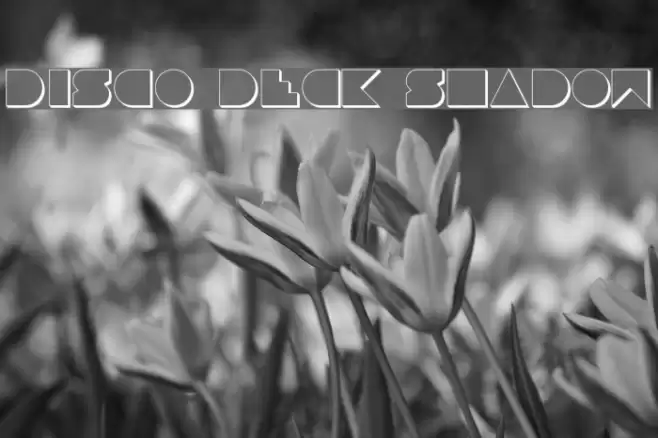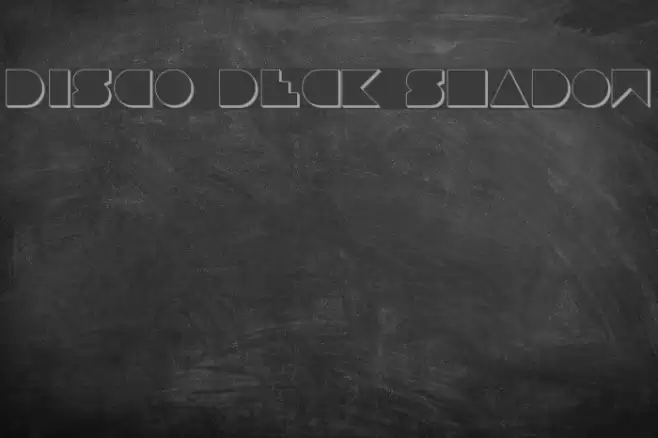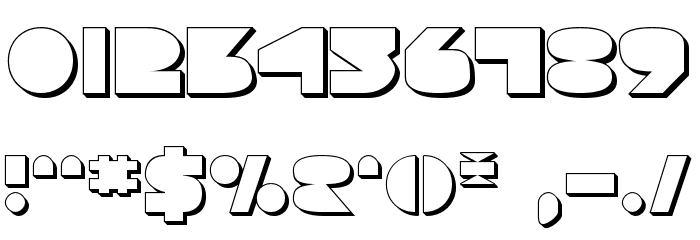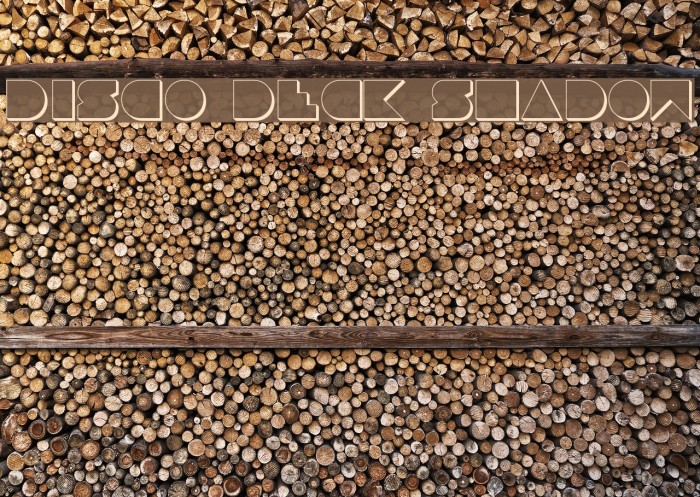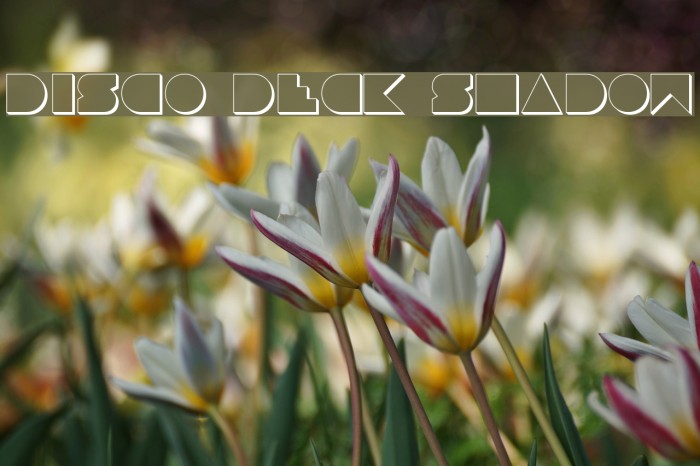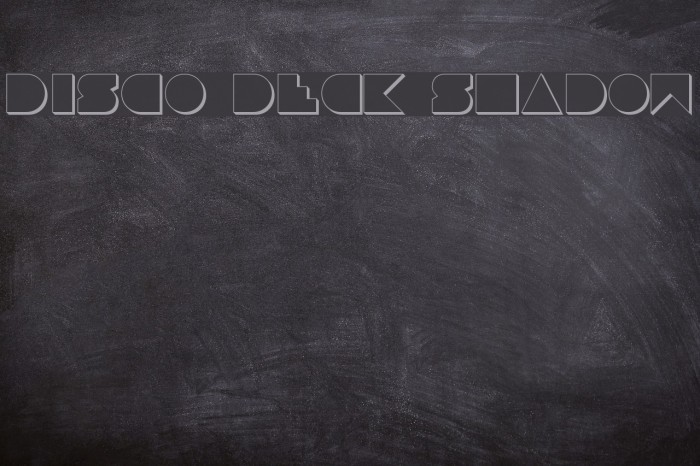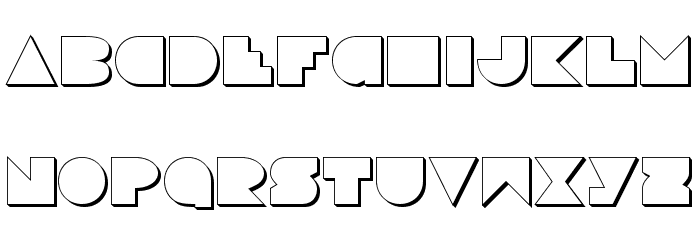
Disco Deck Shadow Font
Disco Deck Shadow Description
This font features a bold, geometric design with a distinct shadow effect that gives it a three-dimensional appearance. Each character is crafted with sharp angles and clean lines, creating a futuristic and dynamic look. The uppercase letters are particularly striking, with a mix of solid and outlined forms that enhance the visual impact. The numbers and special characters maintain the same bold style, ensuring consistency throughout. This font is ideal for projects that require a modern and eye-catching aesthetic, such as posters, album covers, or digital media.
A bold, geometric font with a three-dimensional shadow effect from Crazy fonts.
- Proposed Projects: Ideal for posters, album covers, digital media, and any project needing a modern, eye-catching design.